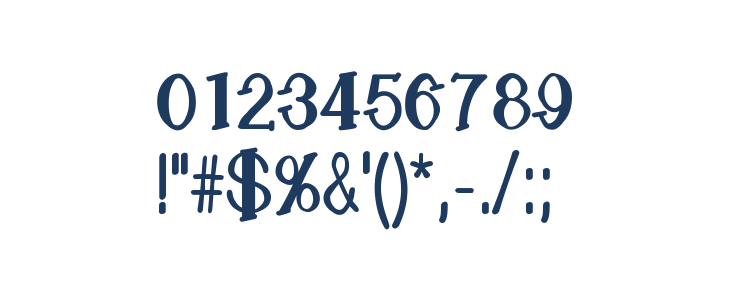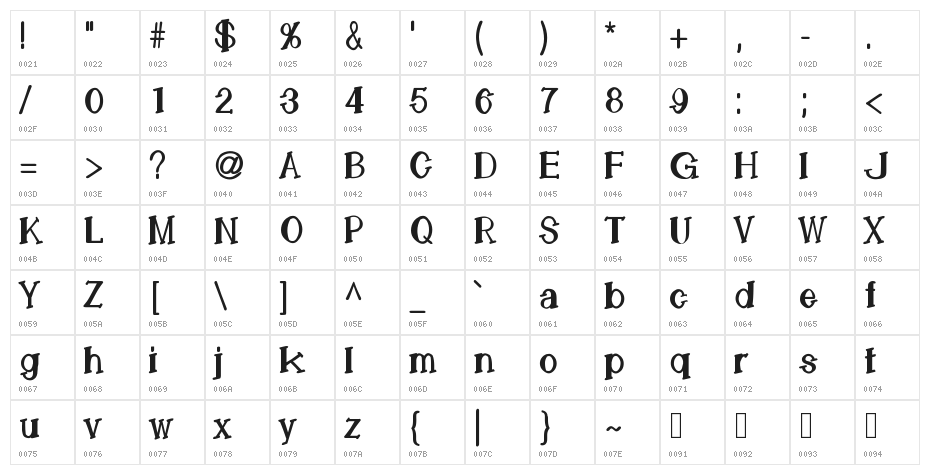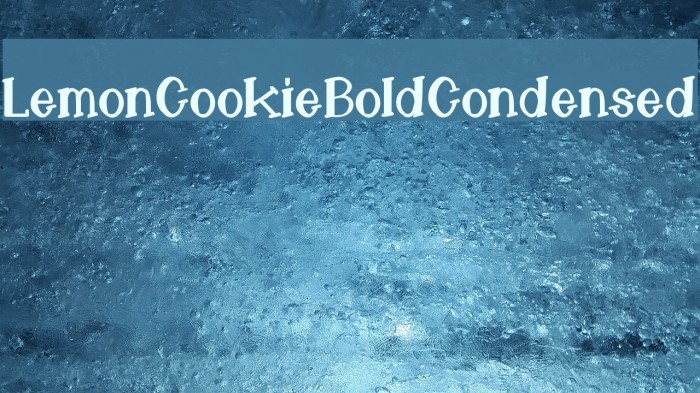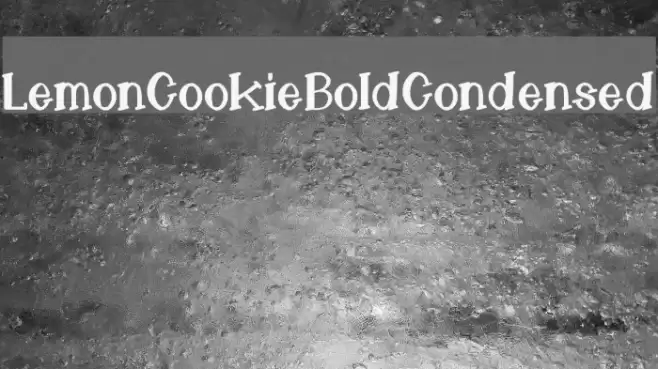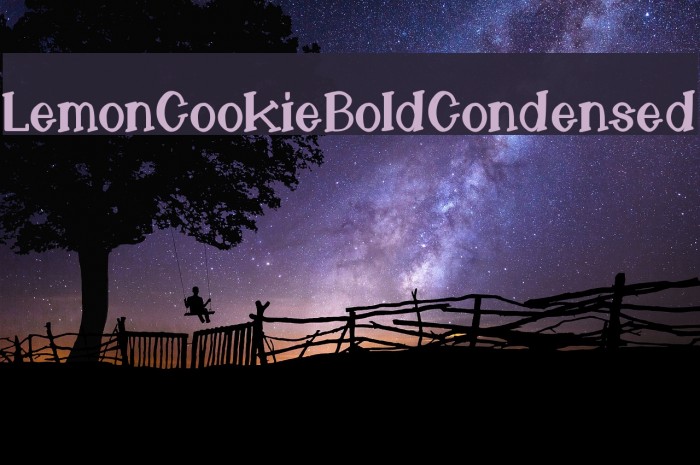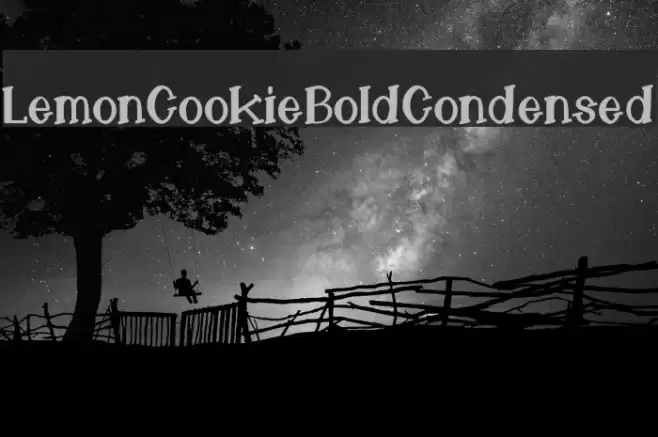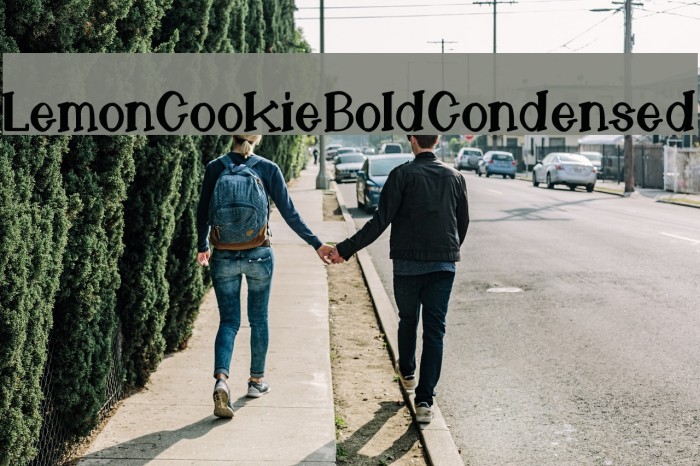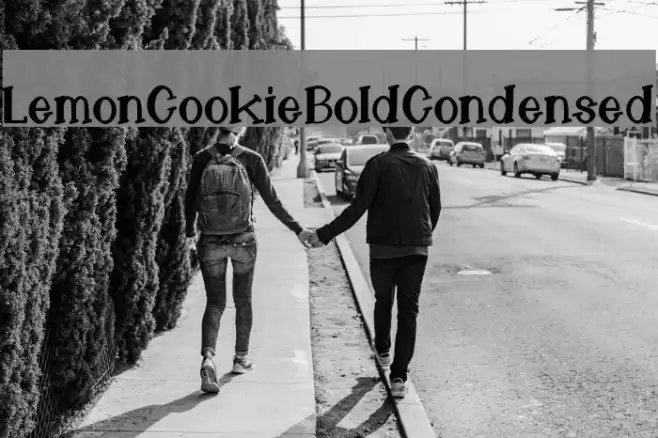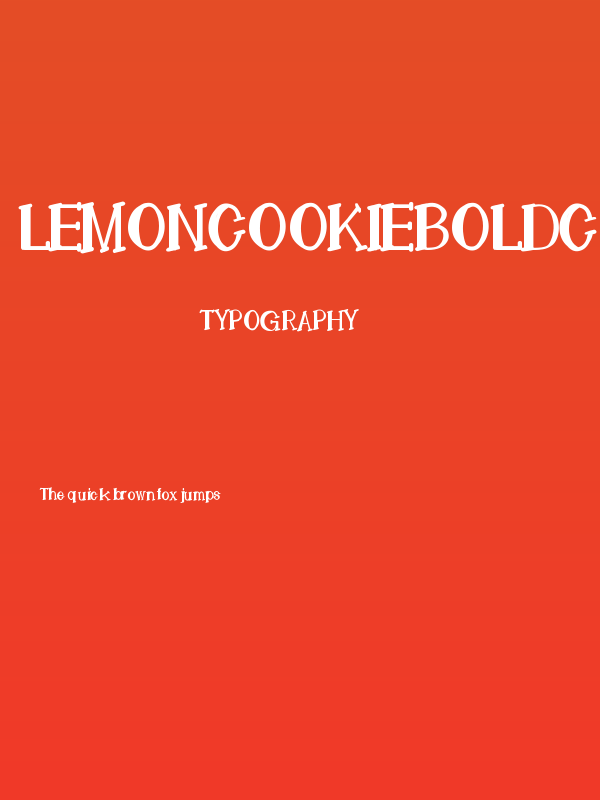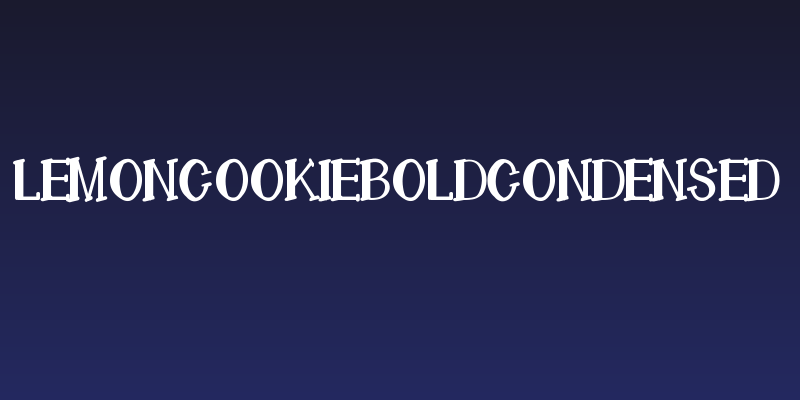
LemonCookieBoldCondensed Font
LemonCookieBoldCondensed Description
This font features a bold and condensed style with a playful yet sophisticated appearance. The characters exhibit a unique blend of sharp edges and rounded curves, giving it a distinctive look. The uppercase letters are tall and commanding, while the lowercase letters maintain a consistent height, enhancing readability. The numerals are well-proportioned, and the special characters are designed to complement the overall aesthetic. This font's boldness is balanced by its condensed width, making it suitable for impactful headlines and titles.